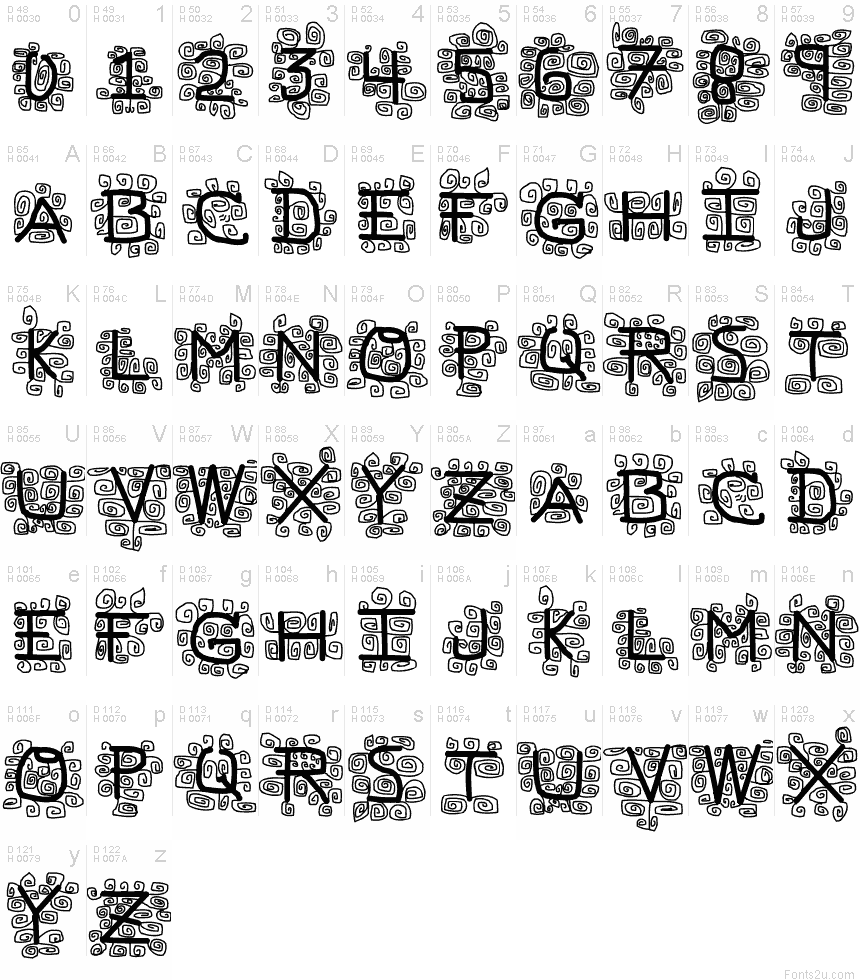
pf_veryverybadfont19
PF Veryverybadfont19, from Planck Foam Scholarly Dragon Press, is a free curly display font with a scruffy hand-drawn swirl running through the whole alphabet. The letters feel like black signpainting wrapped in loose spiral doodles, so the heavy caps read as bold shapes first while the repeated curls keep it playful, messy, and a little psychedelic.
This free font makes the most sense where you want the lettering itself to act like ornament: posters, zine covers, band flyers, party invites, and title cards all suit its tangled energy. It also works for short headlines, monograms, or drop caps, because those looping lines quickly fill space and turn a few letters into a decorative graphic.
David E. Howerton
When taking notes in class at meetings during a game etc when the person speaking has said the same thing three times and someone asks them to repeat it again I start doodling around the letters in my notes.